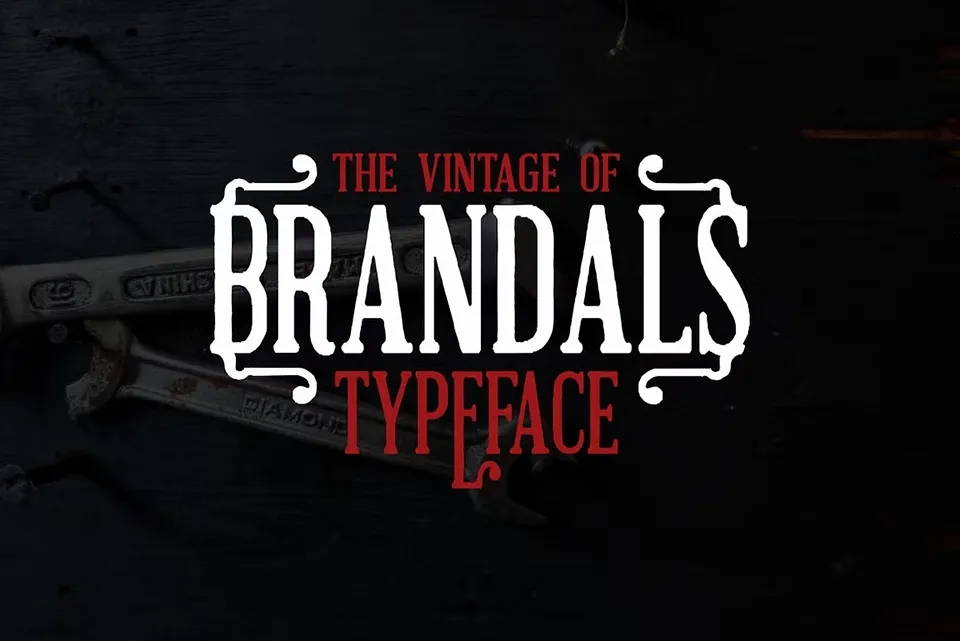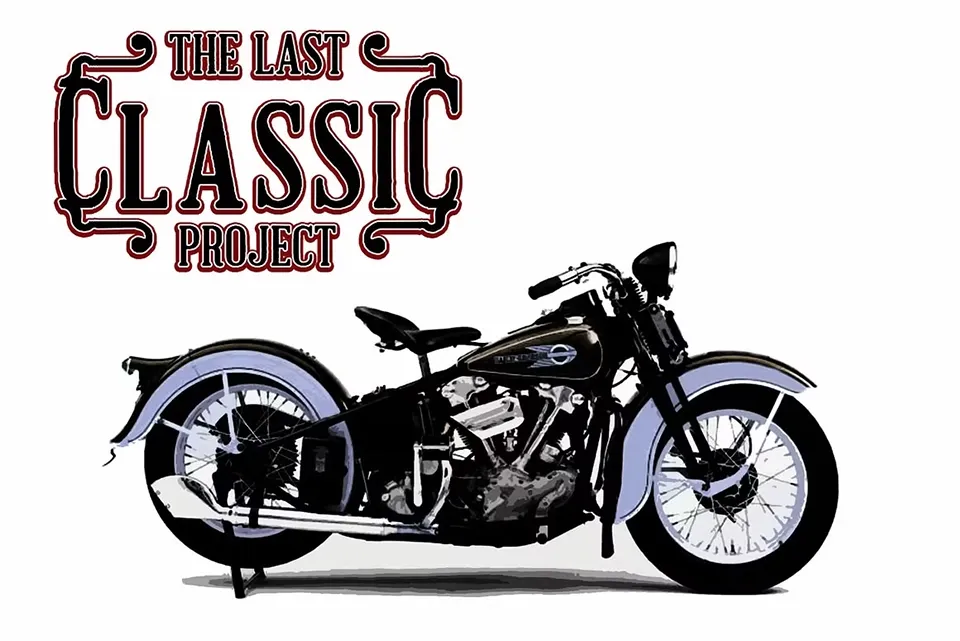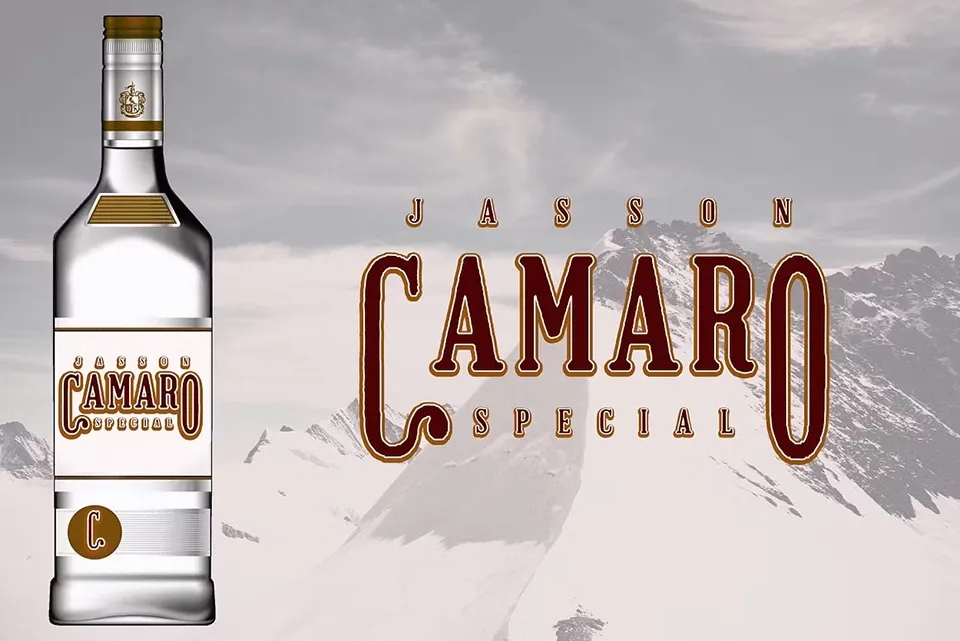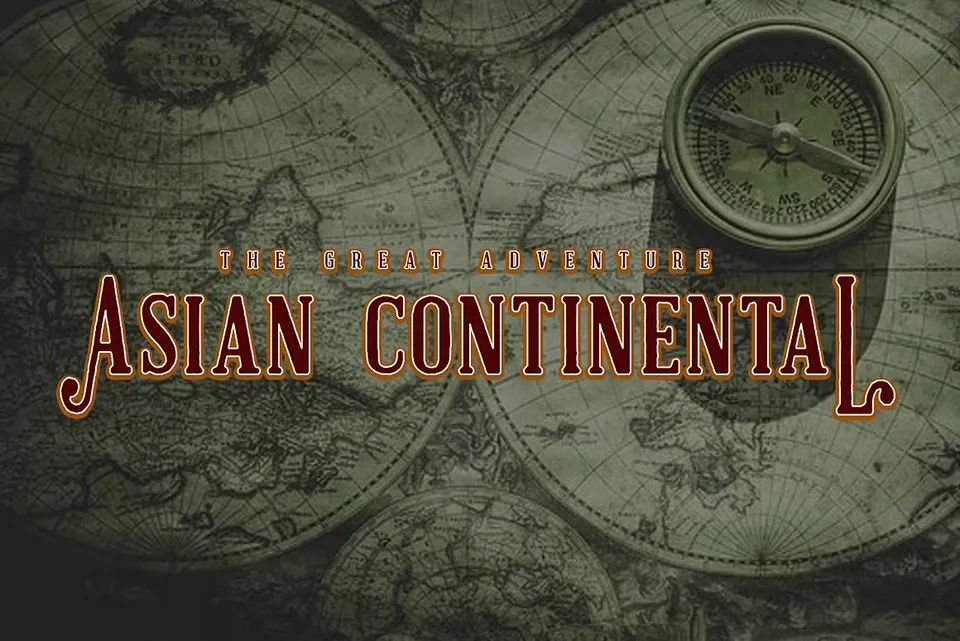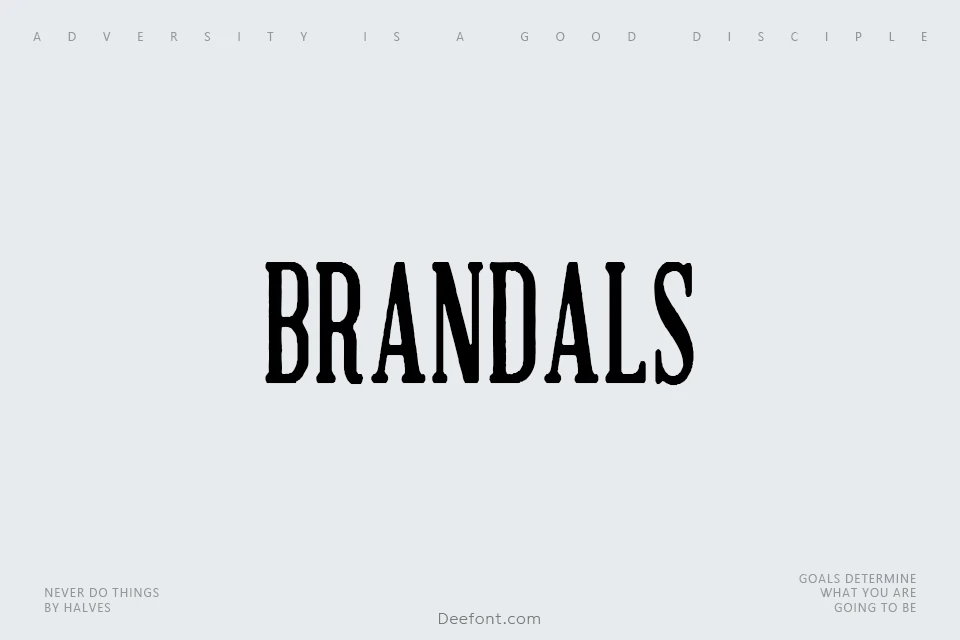
Brandals Font
Brandals Font is a bold and vintage-inspired typeface that exudes character and charm. With its strong, decorative serifs and retro aesthetic, this font is perfect for creating designs with a classic yet rugged appeal. Ideal for logos, posters, packaging, and signage, Brandals brings a timeless vibe to any project. Its unique letterforms, combined with ornamental details, make it stand out while maintaining excellent readability. Whether you’re working on branding for a barbershop, a whiskey label, or a retro-themed event, Brandals adds a touch of nostalgia and sophistication. Let this versatile typeface bring your creative ideas to life with style and impact!